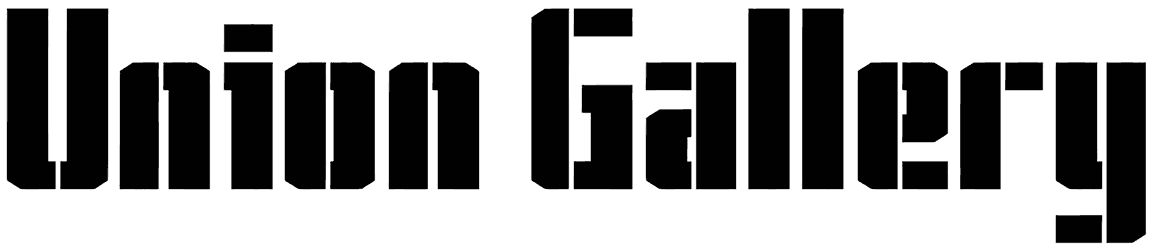
Union Gallery Font
Union Gallery is a new level of stencil fonts that have a modern and severe effect and can make your design space official. This army font can signal the feeling of power and influence that every new brand needs.
You can use Union Gallery to transform your printed projects, video games, and posters into a different and persuasive design that will convey the content to the audience with a clear voice.